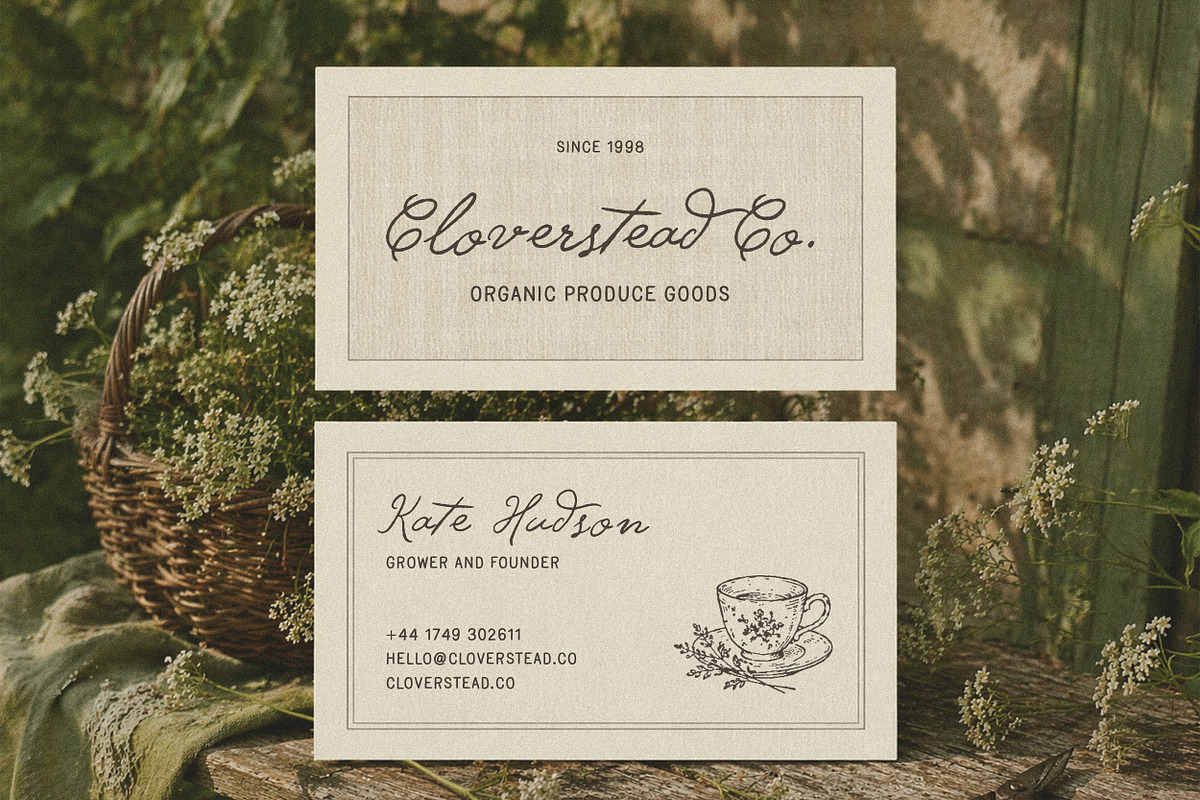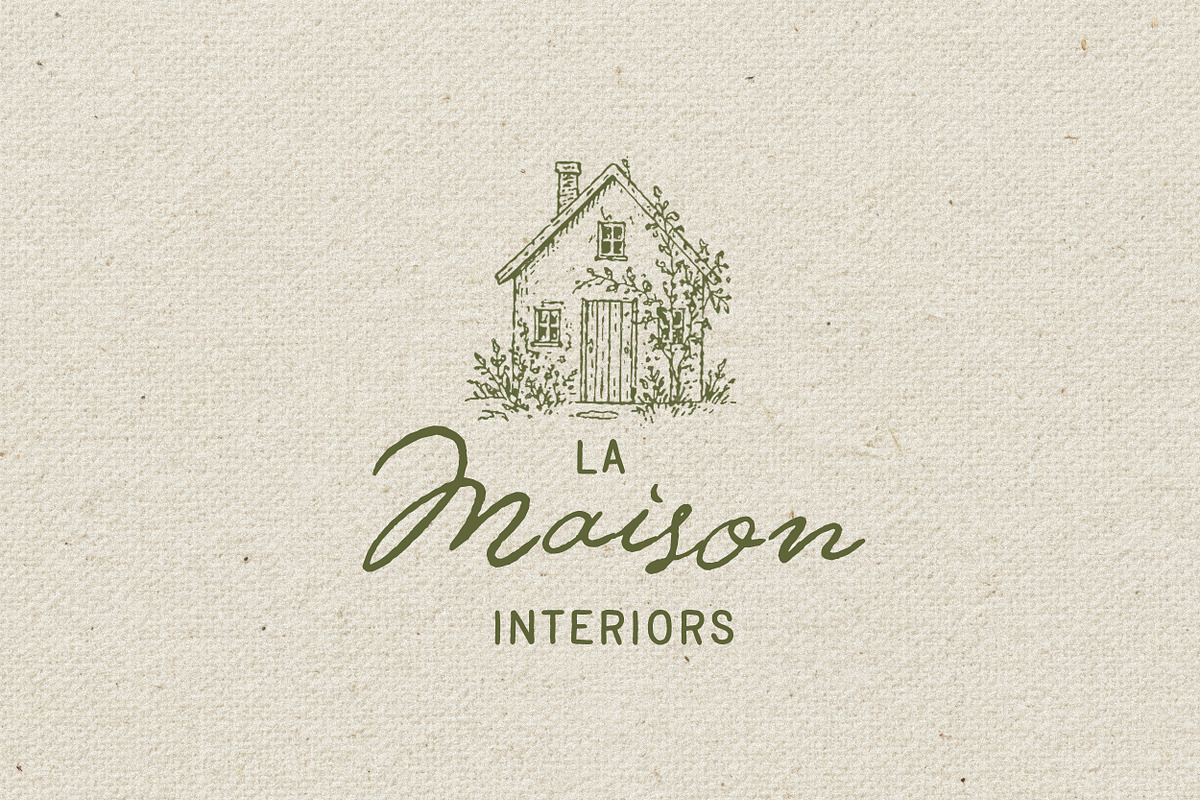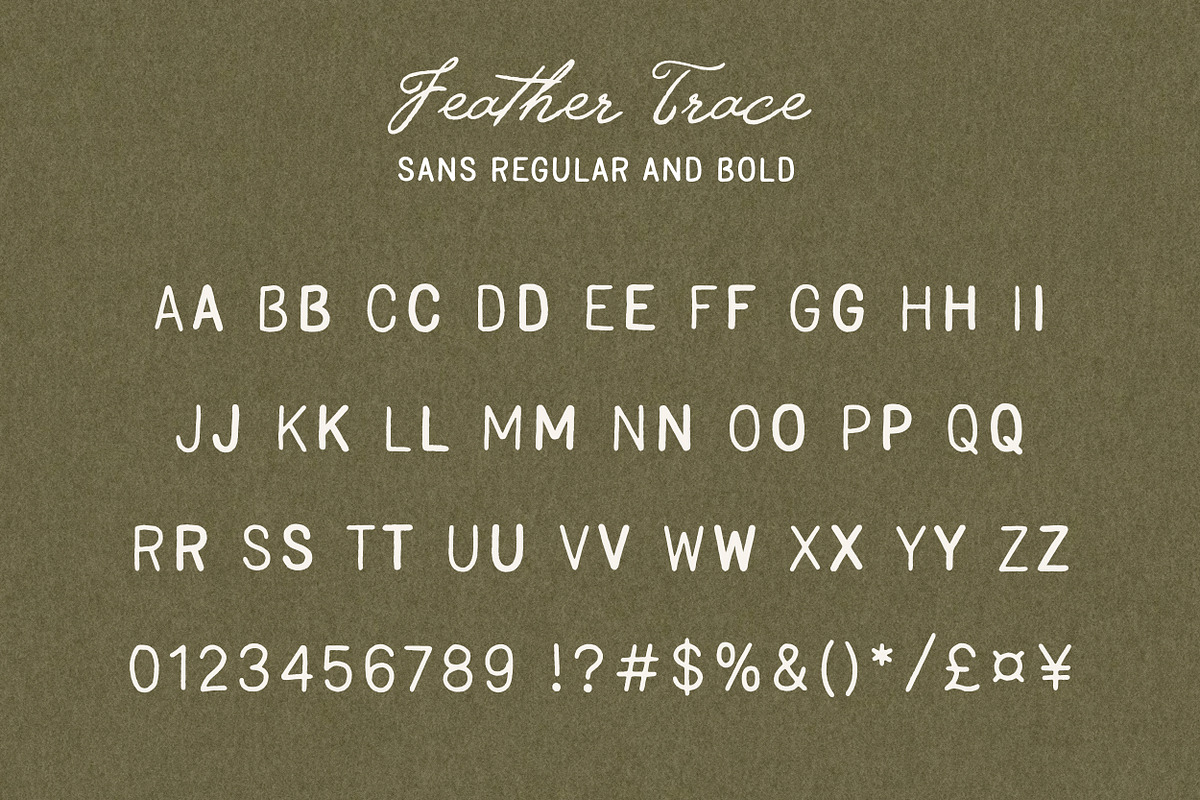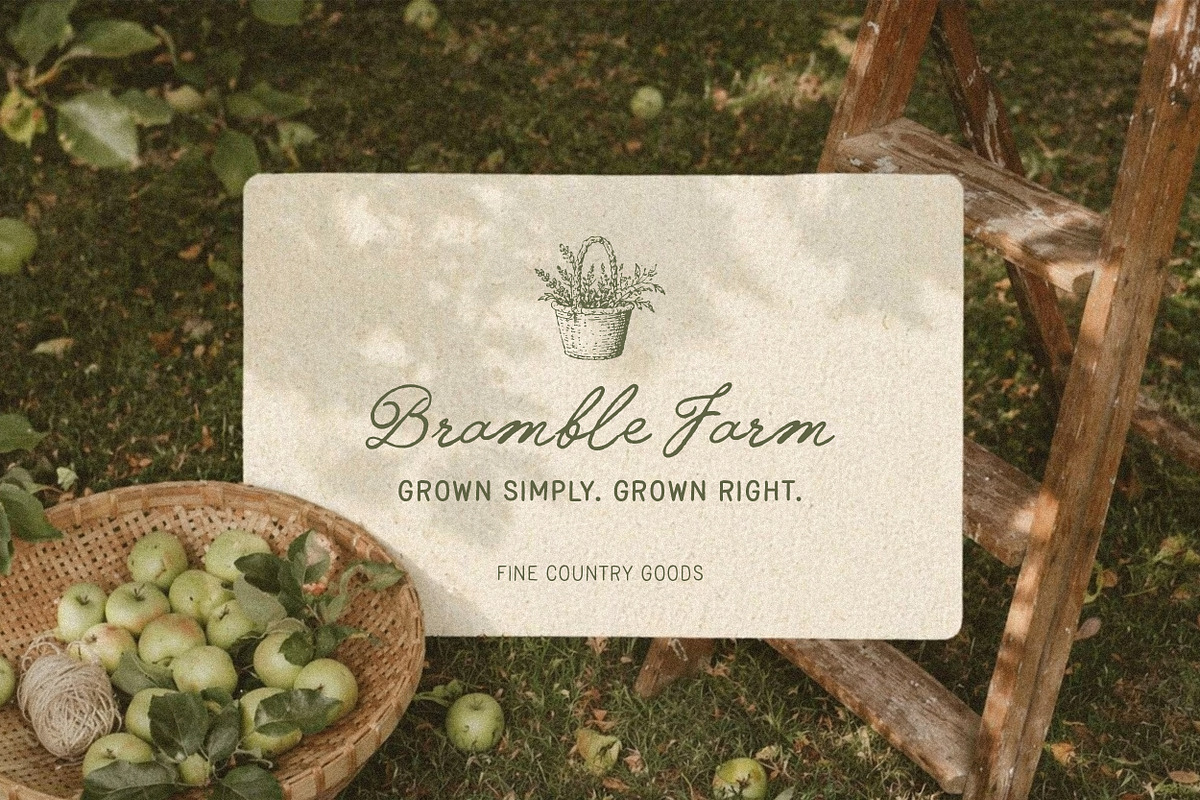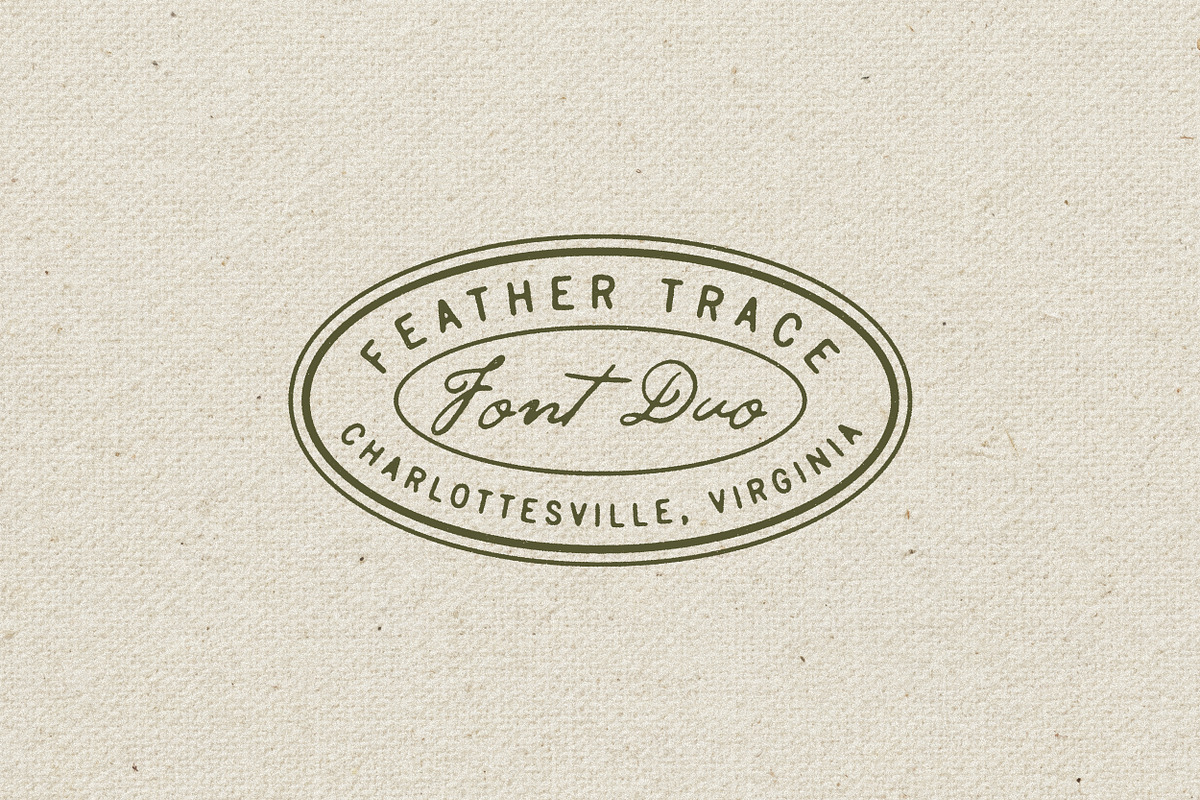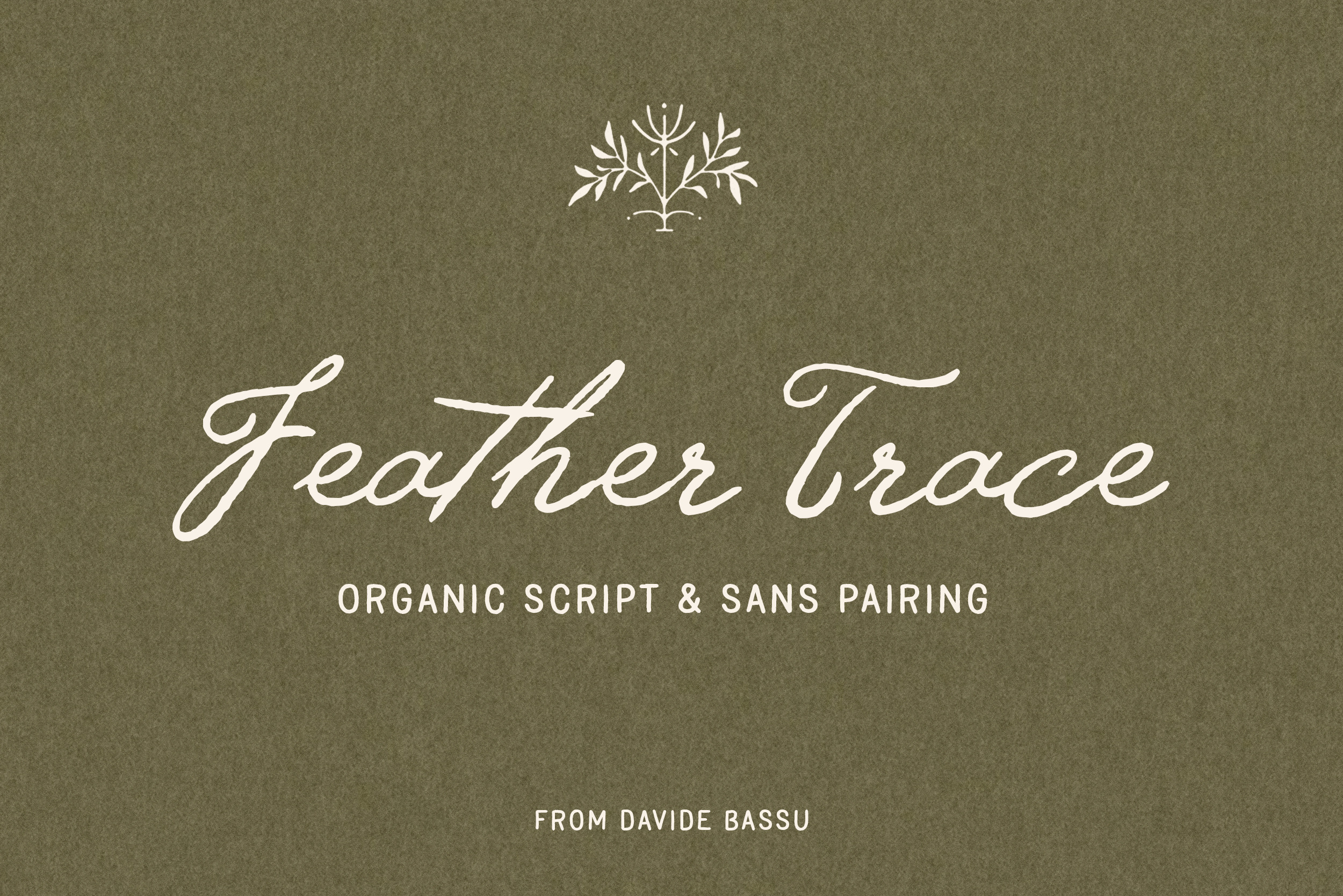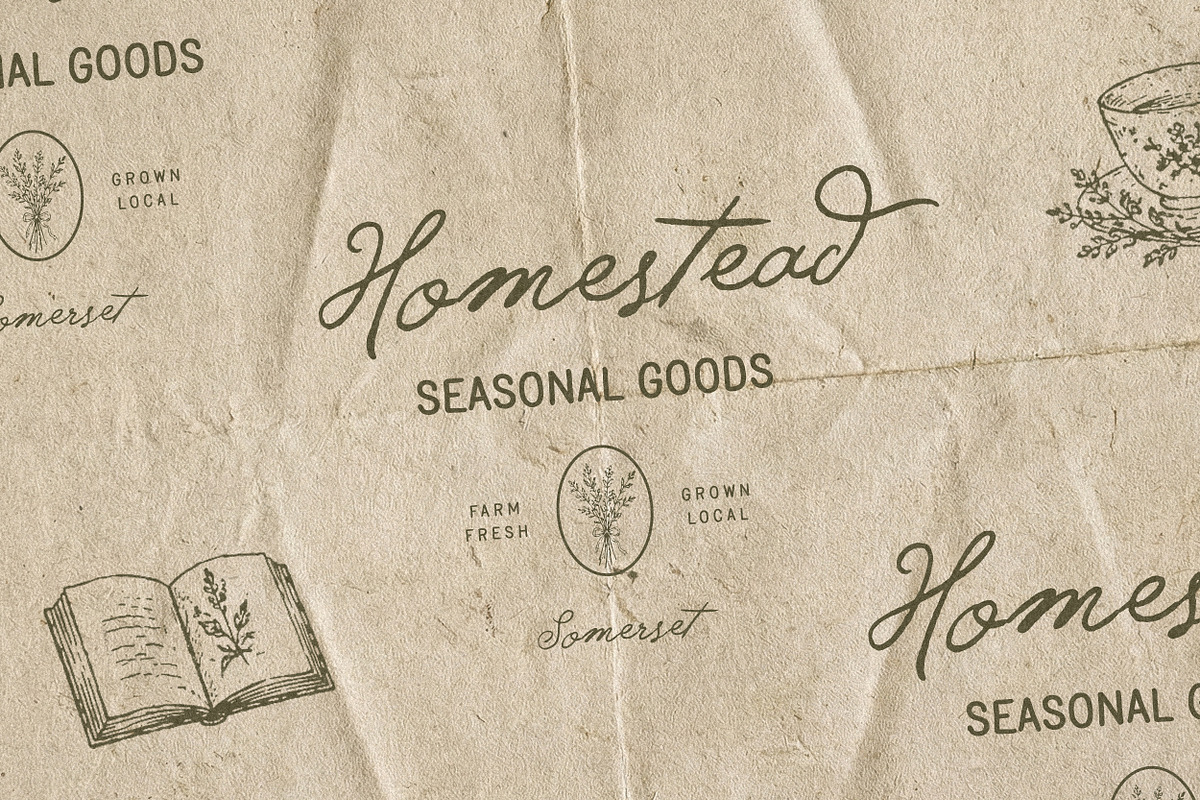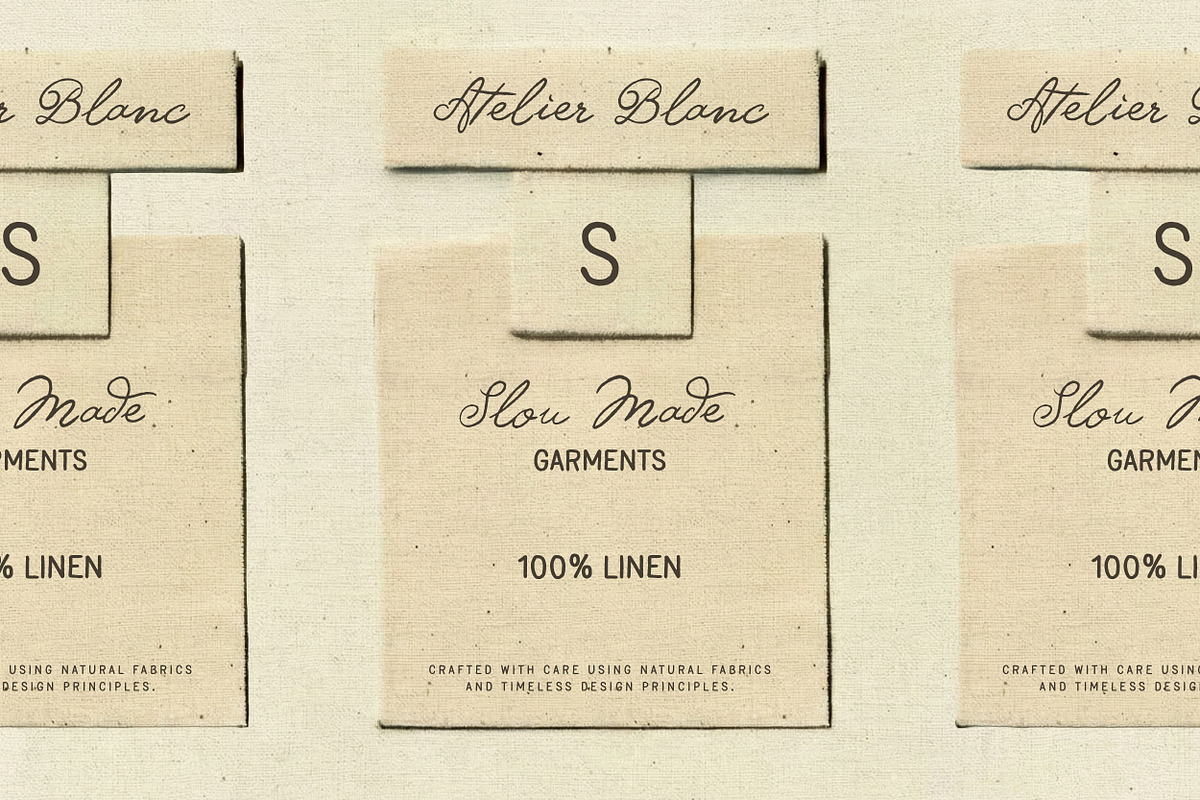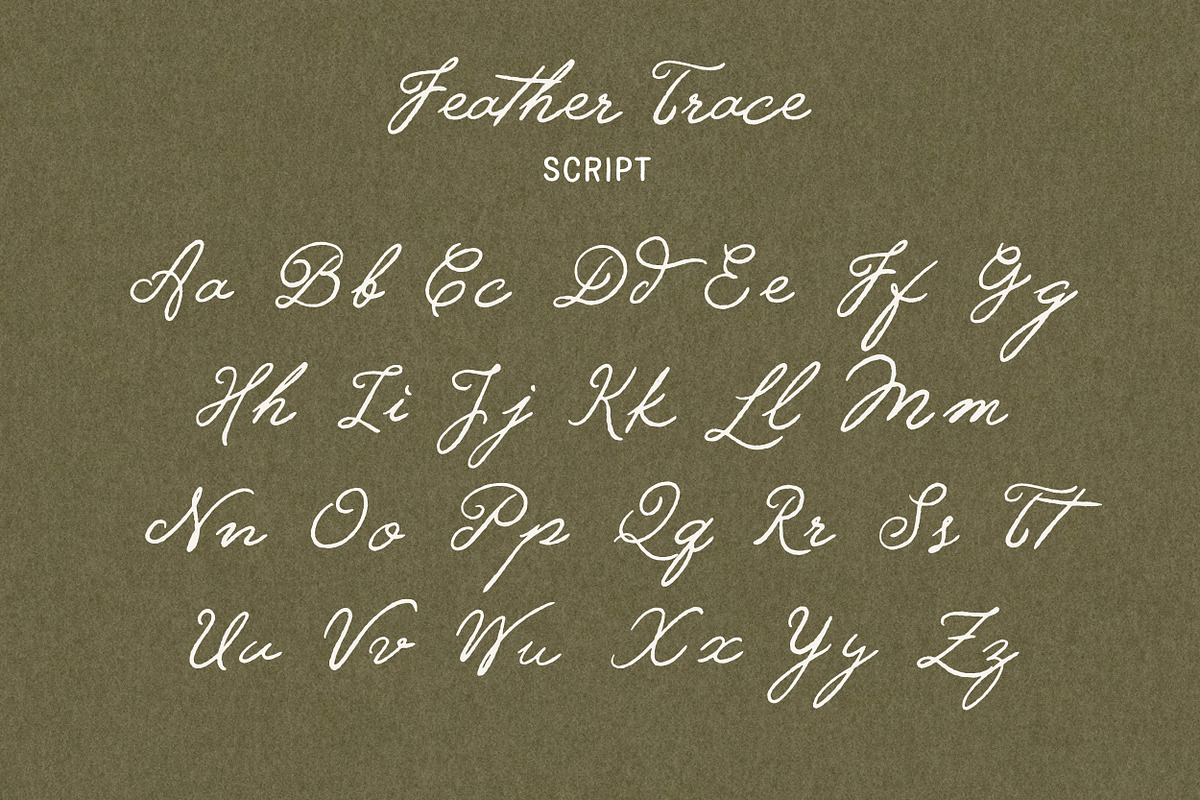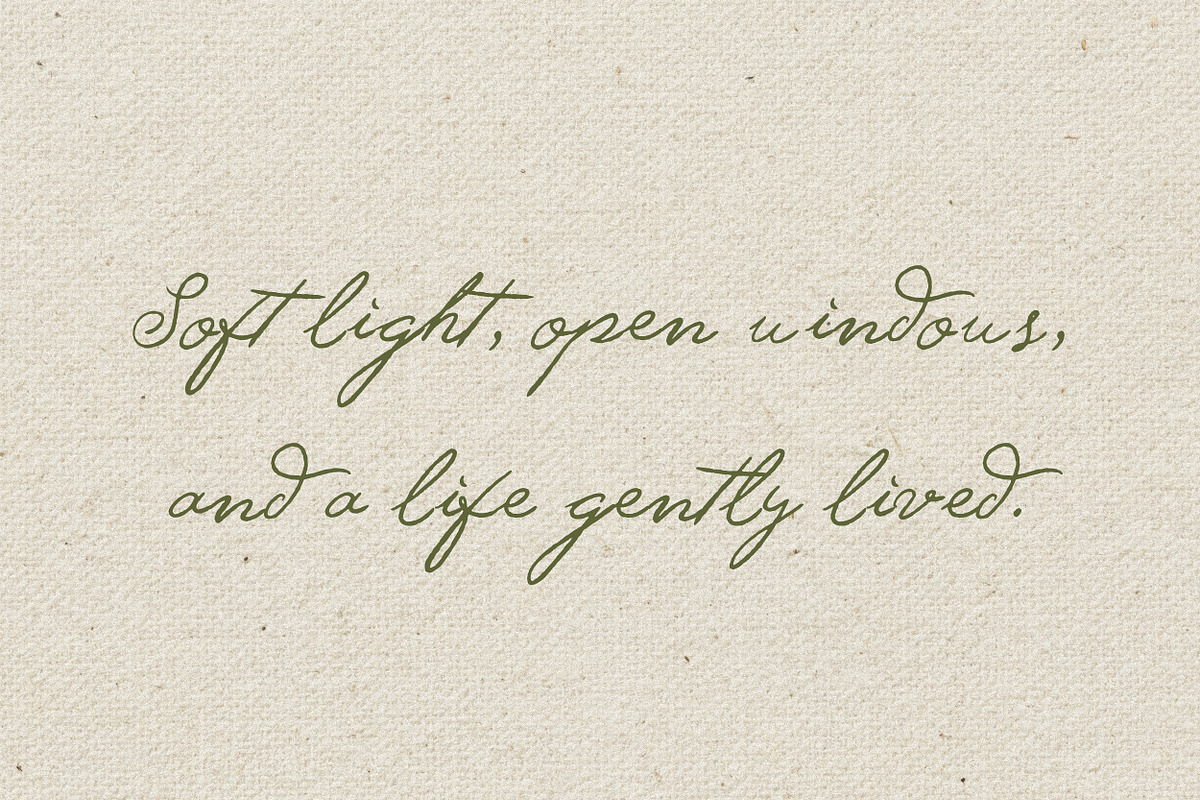
Feather Trace - Organic Font Duo
Feather Trace is a font duo built around contrast and balance. The script carries a soft, expressive rhythm, while the sans keeps everything grounded and clear.
It’s inspired by simple, tactile things — paper textures, handwritten notes, quiet countryside details — the kind of aesthetic that feels honest without trying too hard.
This pairing works especially well for branding, packaging, editorial layouts, and social content where you want a touch of personality, but still need structure and readability.
The script flows naturally across words, making it ideal for logos, signatures, and headline use, while the sans brings clarity to supporting text, keeping everything clean and usable.
Easy to use, versatile, and designed to feel right across a wide range of projects, from logos and labels to printed materials, invitations, and digital design.